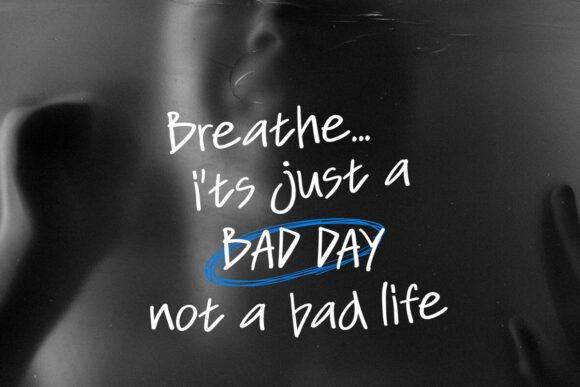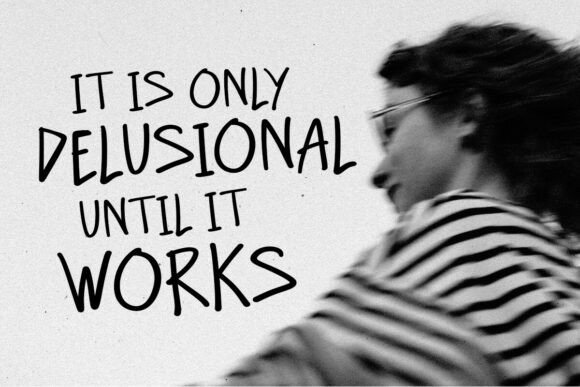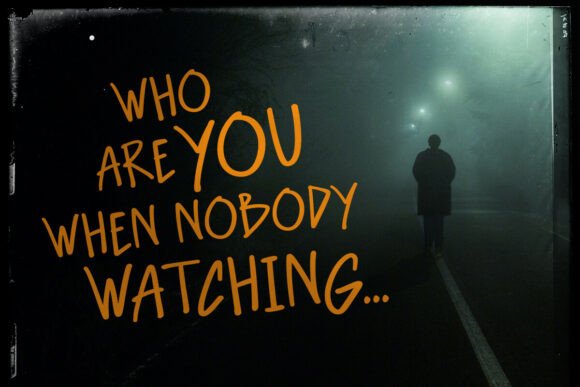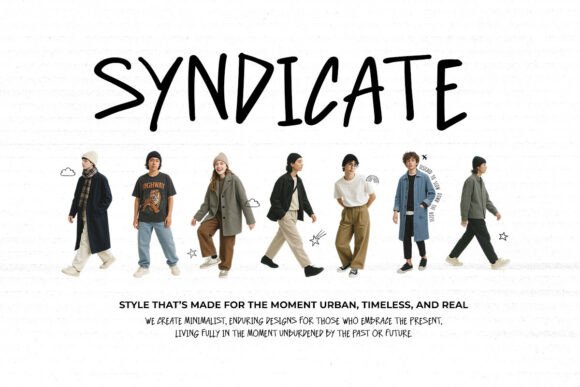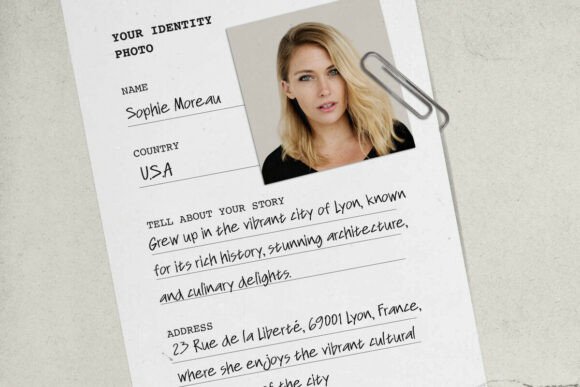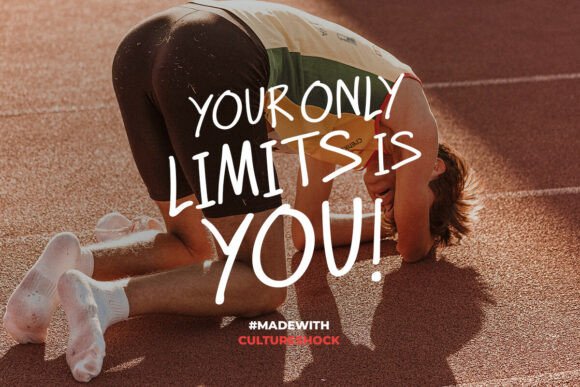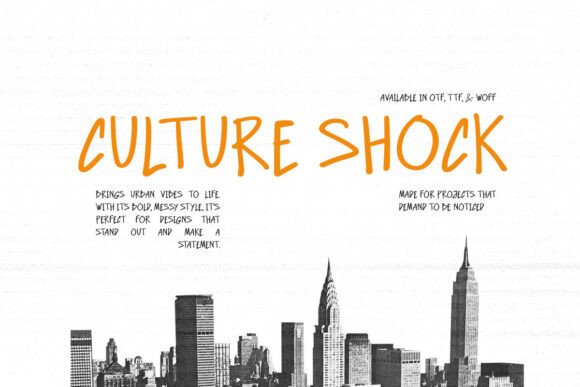
Culture Shock Font: Unleash Your Creativity with a Unique Handwritten Style
Are you tired of using the same old fonts in your designs? Do you want to add a touch of personality and individuality to your projects? Look no further than the Culture Shock font, a one-of-a-kind handwritten font that embodies the spirit of creativity and self-expression.
What is Culture Shock Font?
Culture Shock is a unique handwritten font that boasts a messy, carefree style. Its imperfect strokes bring character and personality to any design, making it ideal for projects that need an authentic, urban feel. Whether you’re a designer, craftsperson, or simply a creative enthusiast, this font is sure to inspire you to think outside the box.
Key Features of Culture Shock Font
• Handwritten style: Culture Shock font is a genuine handwritten font, crafted with love and care to bring a personal touch to your designs.
• Messy and carefree: The font’s imperfect strokes and irregularities give it a laid-back, urban feel that’s perfect for creative projects.
• Unique character: Each letter and symbol in the Culture Shock font has its own distinct personality, ensuring that your designs stand out from the crowd.
• Versatile: This font is suitable for a wide range of applications, from posters and logos to creative branding and more.
Why Choose Culture Shock Font?
In today’s fast-paced digital landscape, it’s easy to get lost in a sea of sameness. That’s why it’s more important than ever to inject your designs with personality and character. Culture Shock font offers a refreshing alternative to traditional fonts, allowing you to:
• Add a touch of individuality: Stand out from the crowd and make your designs more memorable with a unique font that reflects your creative vision.
• Capture the essence of urban style: Culture Shock font embodies the spirit of city living, with its messy, carefree strokes and imperfect charm.
• Inspire creativity: This font is designed to spark your imagination and inspire new ideas, helping you to push the boundaries of what’s possible in your designs.
How to Use Culture Shock Font
Culture Shock font is incredibly versatile, making it suitable for a wide range of applications. Here are just a few ideas to get you started:
• Posters and flyers: Add a bold, eye-catching touch to your promotional materials with Culture Shock font.
• Logo design: Create a unique and memorable logo that reflects your brand’s personality and values.
• Creative branding: Use Culture Shock font to develop a cohesive brand identity that stands out from the competition.
• Handmade crafts: Add a personal touch to your handmade crafts, such as journals, cards, and gift tags.
Tips and Tricks for Working with Culture Shock Font
To get the most out of Culture Shock font, here are a few tips and tricks to keep in mind:
• Experiment with different colors: Culture Shock font looks great in a variety of colors, so don’t be afraid to try out different hues and combinations.
• Play with texture and pattern: Add depth and interest to your designs by incorporating texture and pattern.
• Mix and match with other fonts: Culture Shock font pairs well with a range of other fonts, so feel free to experiment with different combinations.
Culture Shock font is a game-changer for designers and crafters looking to add a touch of personality and individuality to their projects. With its unique handwritten style, messy and carefree strokes, and versatile applications, this font is sure to inspire creativity and self-expression. So why wait? Download Culture Shock font today and unleash your full creative potential!